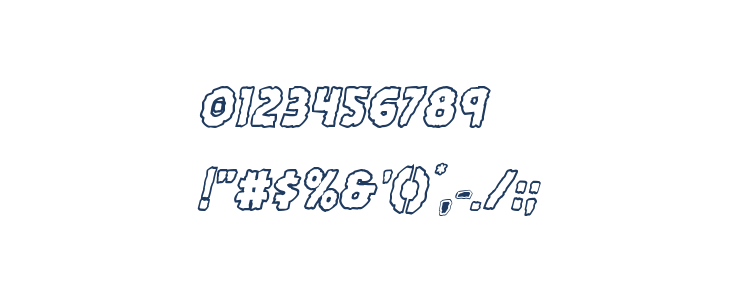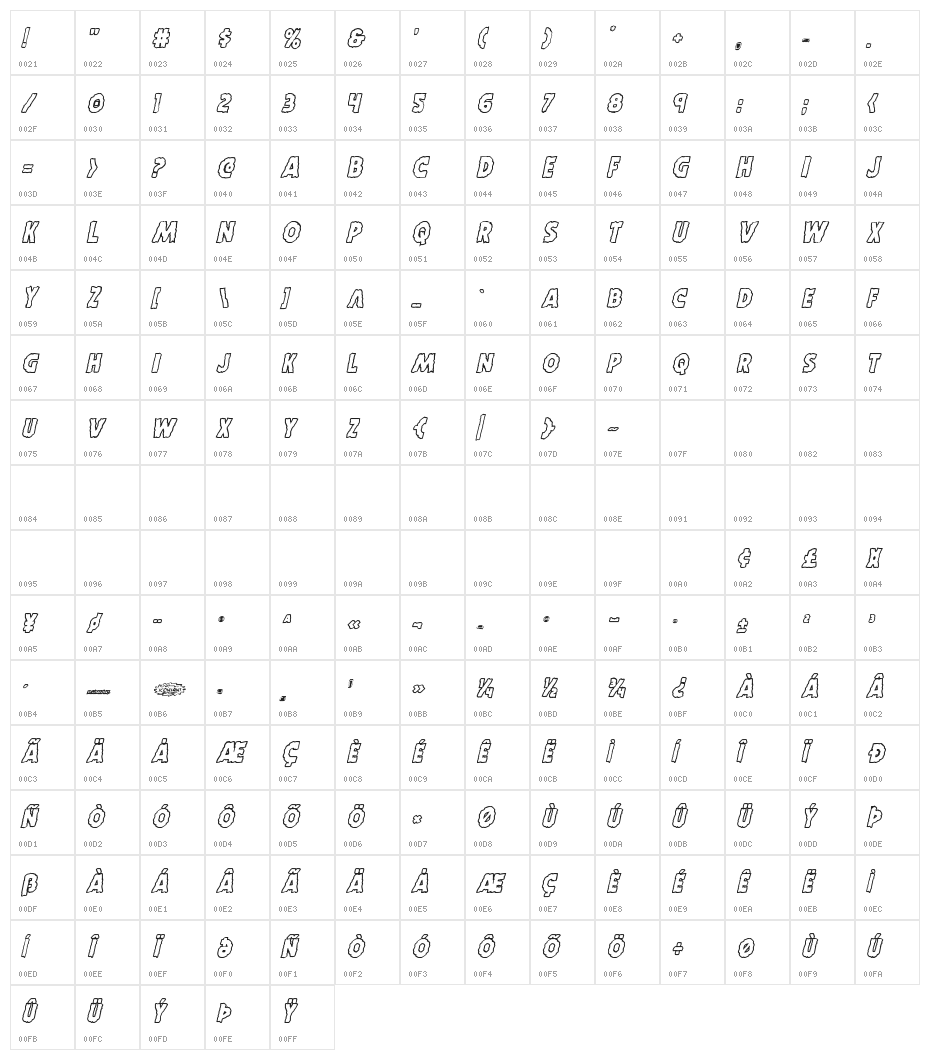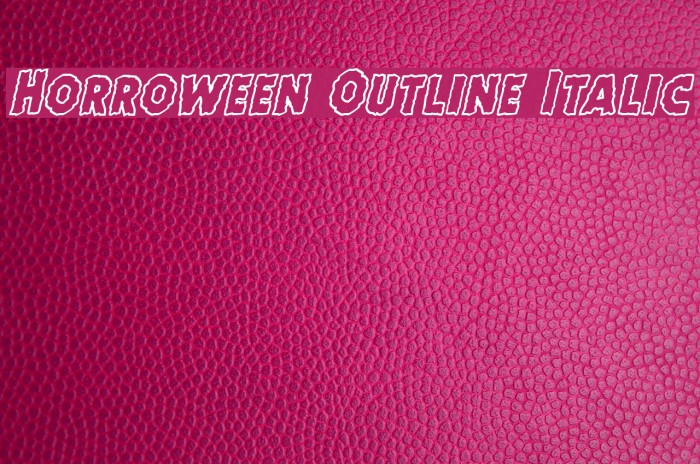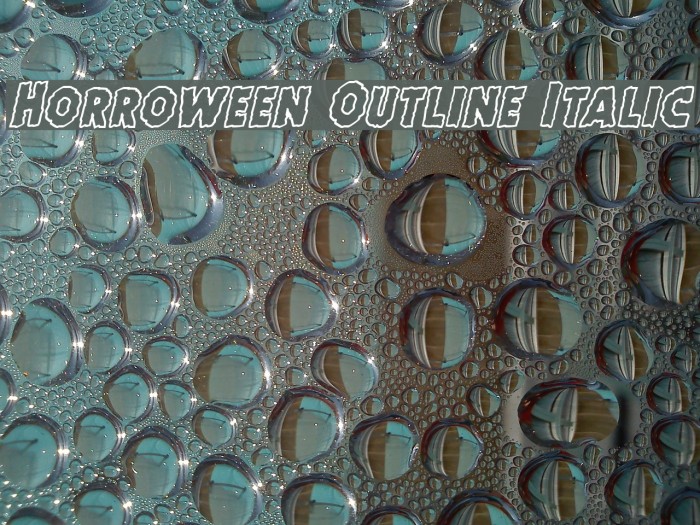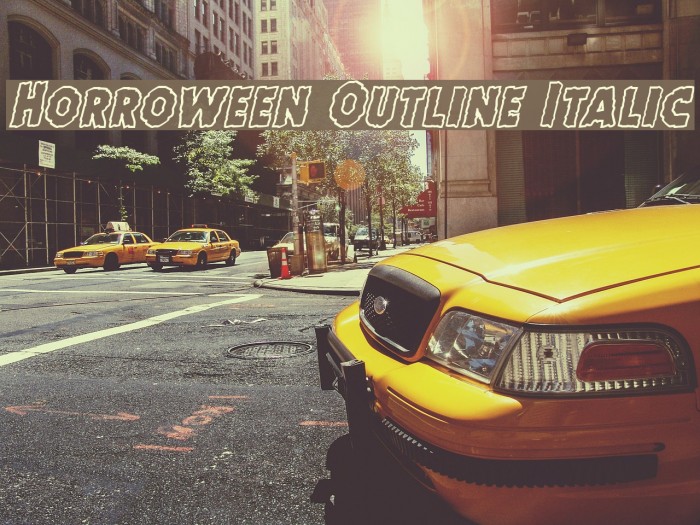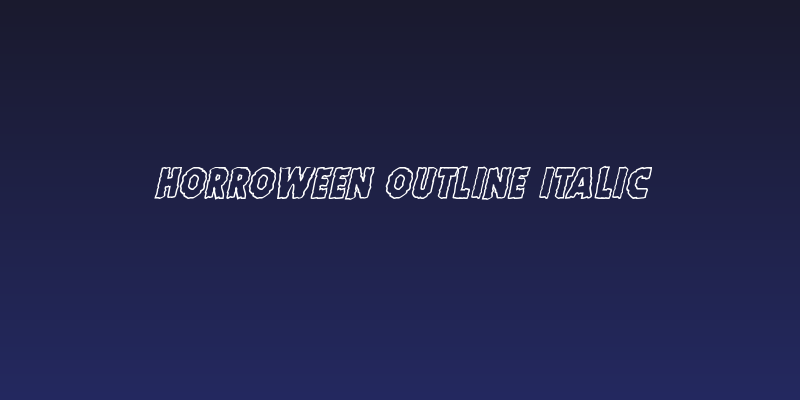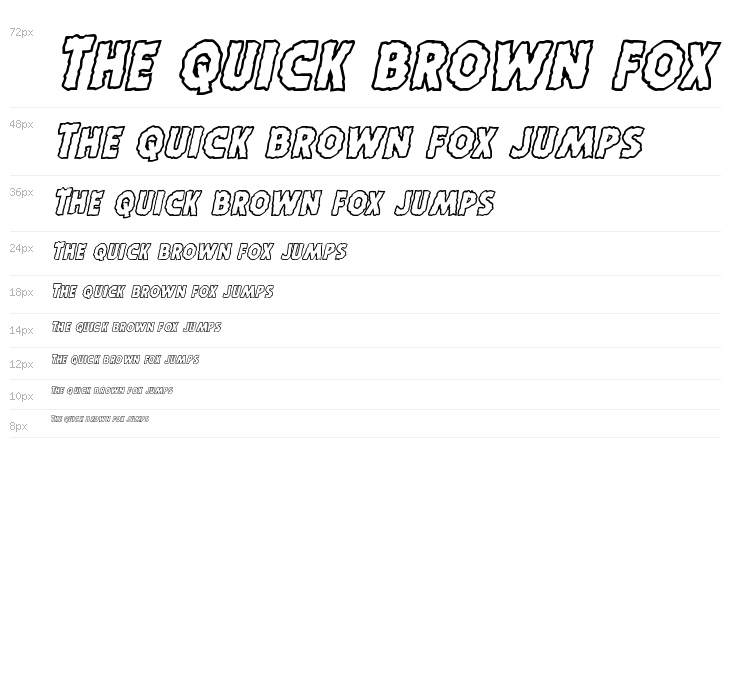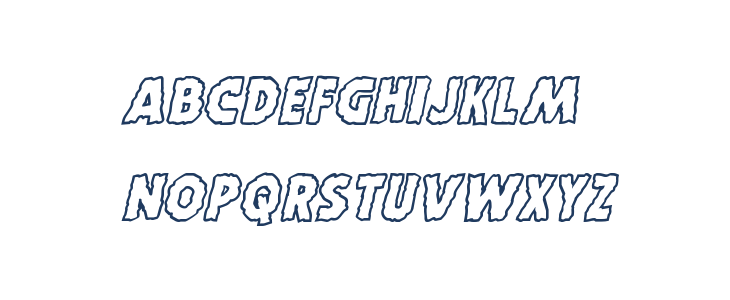
Horroween Outline Italic Font
Horroween Outline Italic Description
This font features a bold, outlined style with a playful and slightly spooky aesthetic. The letters are italicized, giving them a dynamic and energetic appearance. The outline adds a sense of depth and dimension, making each character stand out distinctly. The font maintains a consistent thickness throughout, with moderate spacing between characters, ensuring readability while preserving its unique style. The overall design is reminiscent of a Halloween theme, making it ideal for festive and themed projects.